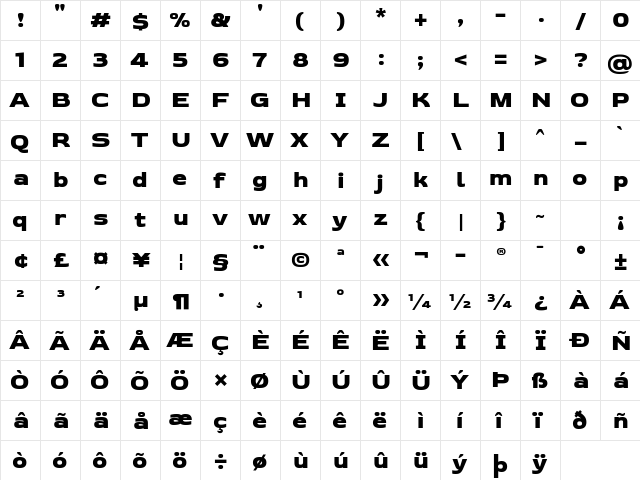
Dashboard Regular
Design Context for Dashboard Typeface
Dashboard offers clean, dependable letterforms without strong stylistic allegiance, making it a practical choice for designers who need flexibility.
Pro Tip: Use Dashboard in both headline and body roles to test its range before committing to a single application.